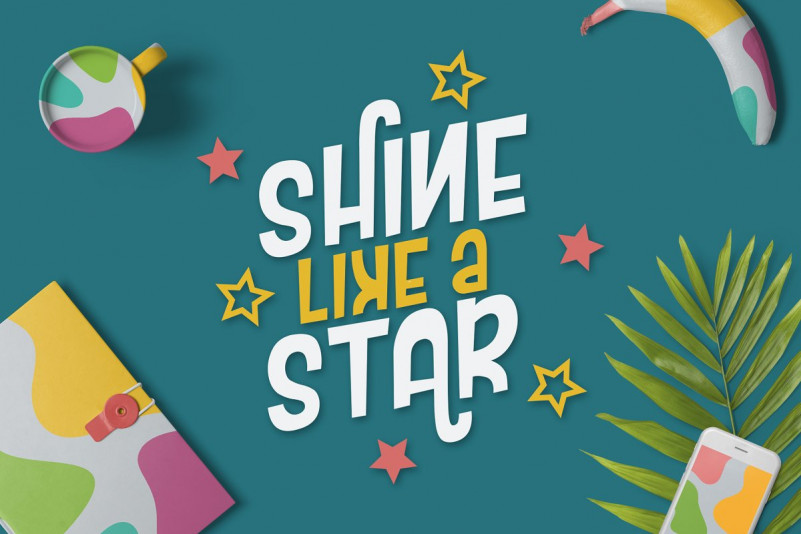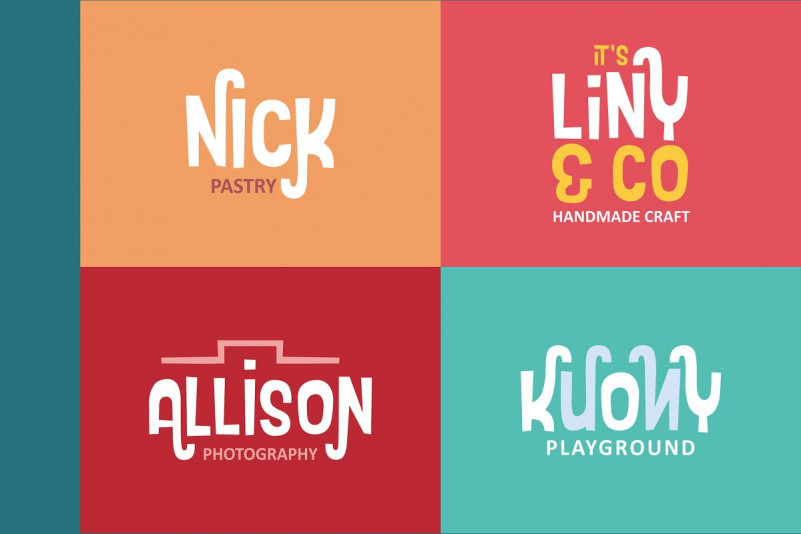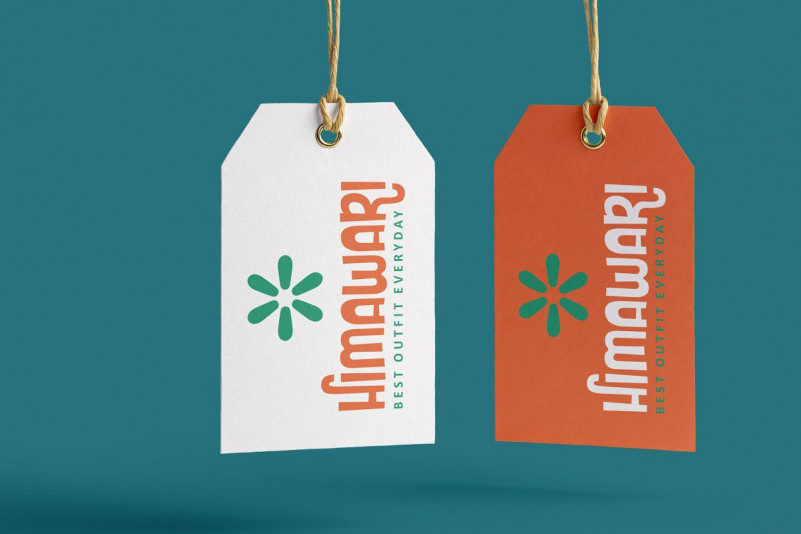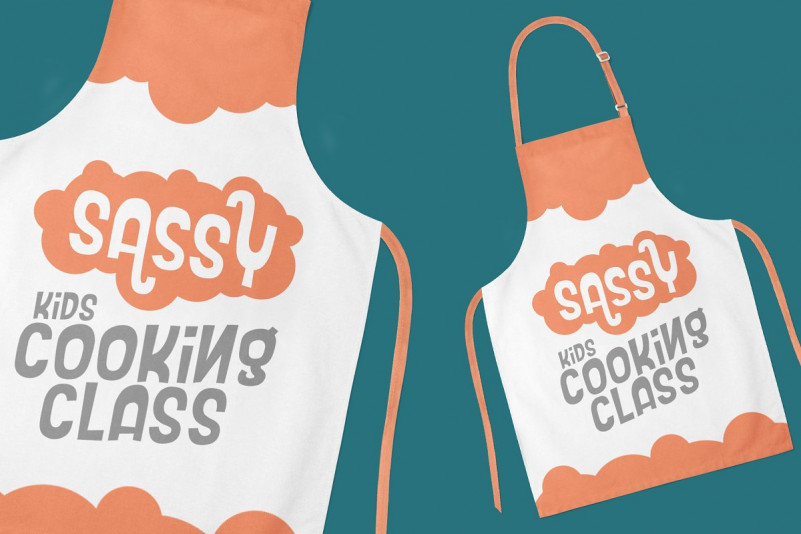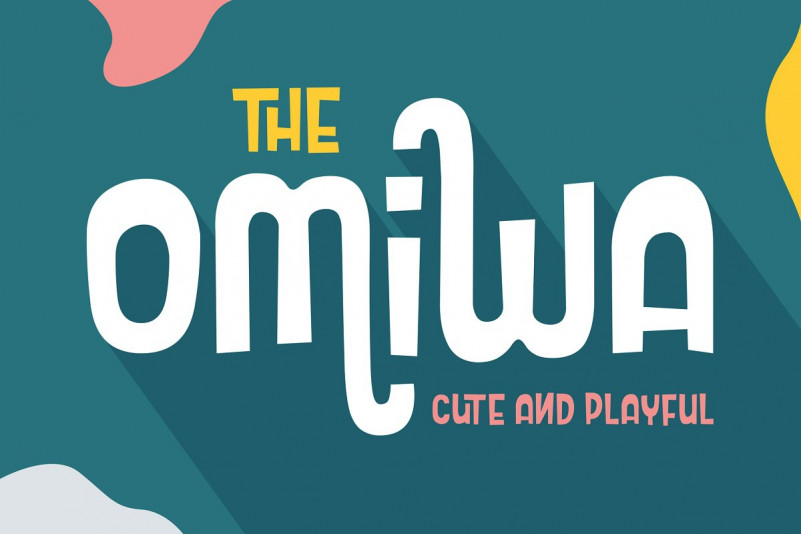
Omiwa Typeface
This is an adorable, playful typeface with a monoline style. Introducing Omiwa Cute And Playful Font. The Omiwa is a playful font with unique character that is perfect for all design purposes. With unique alternate characters you can combine it into awesome waves! Omiwa Cute And Playful Font simplicity & versatility is perfect for any creative projects, be it a logo, quote, blog header, invitation, branding, t-shirts, posters & etc!